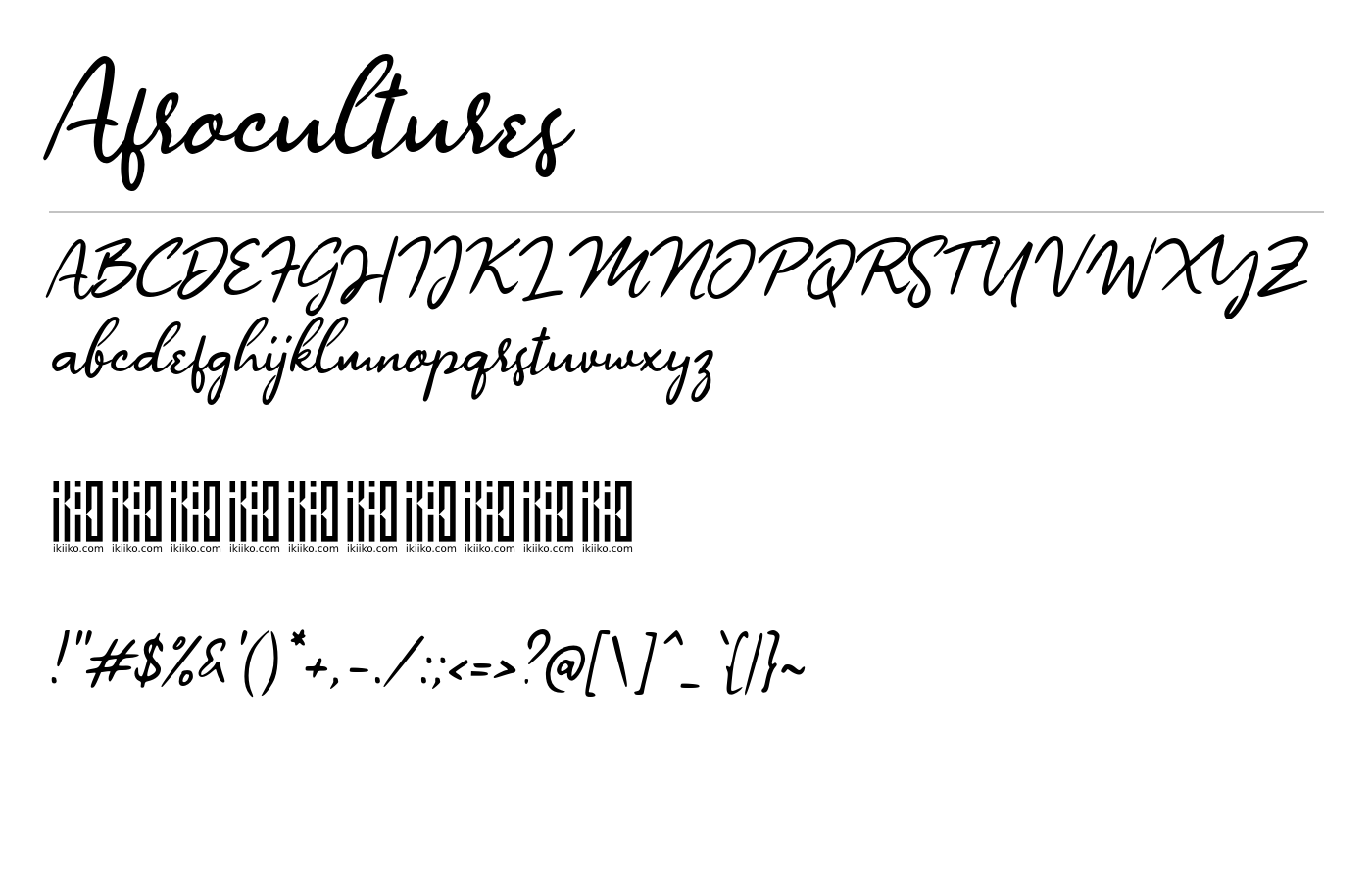
Afrocultures is a lively, handwritten script font with a smooth, flowing style that feels both personal and expressive. Its medium weight and moderate contrast create an inviting, casual elegance, making it ideal for branding, invitations, and creative projects that want to convey warmth and friendliness. This font works well for designs seeking a modern yet approachable handwriting look with a touch of artistic flair.
Afrocultures Font
About Afrocultures Font
| Font family | Afrocultures Font |
| Designer | Andhika Pradana, Wahyu Eka Prasetya |